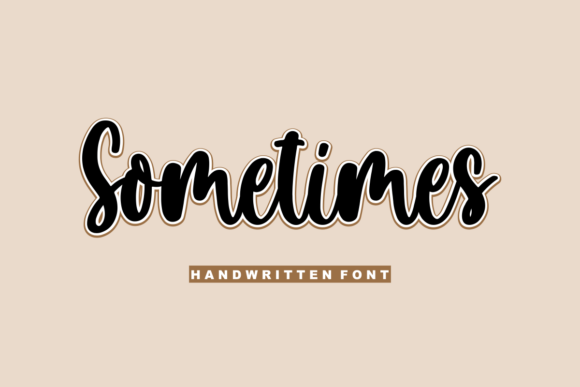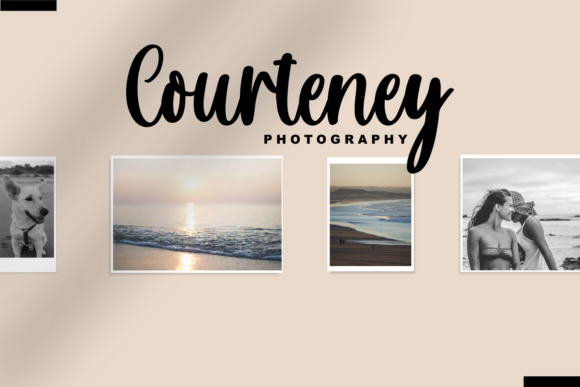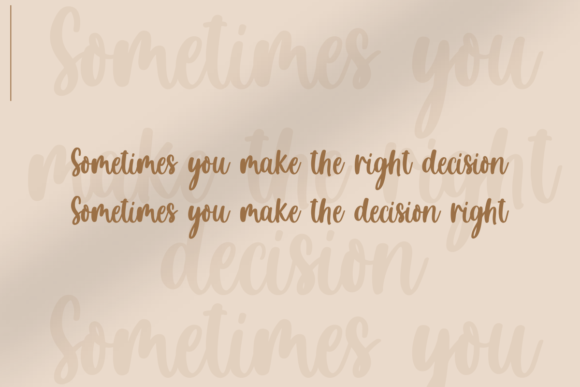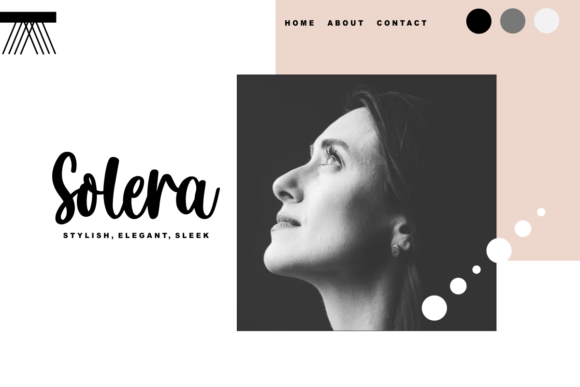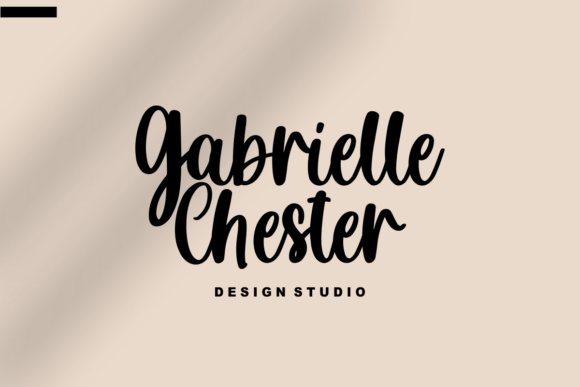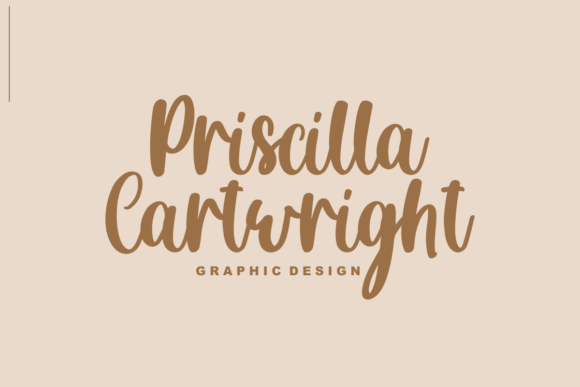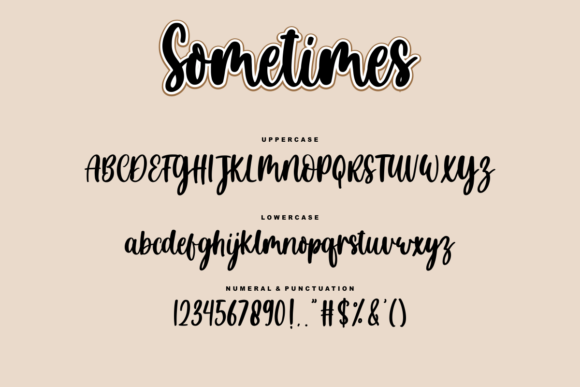
Sometimes Font
About Sometimes Font
Sometimes is a delicate and elegant handwritten font. Its distinct and well rounded letters make this font a masterpiece. Fall in love with its incredibly versatile style and use it to create spectacular designs!